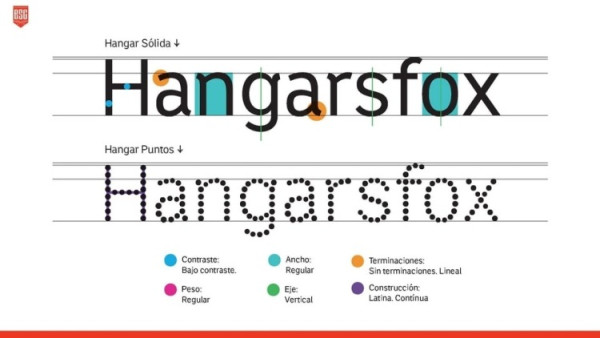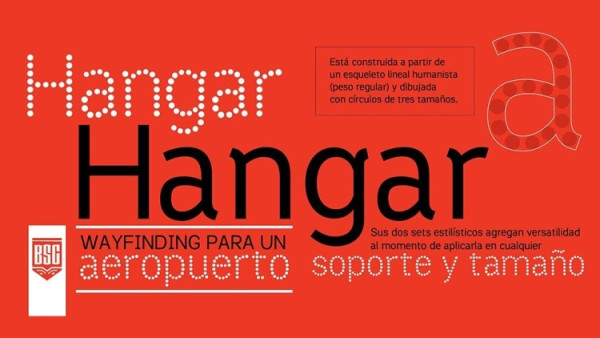
Hangar Font
Hangar Font is a wayfinding sans serif typeface designed for an airport. It features a solid character set and an additional stylistic set drawn from dots that retain the same structure.
Hangar is a humanistic linear type, it has a structure of little contrast but with pointed endings to emphasize the sign. It consists of two versions:
Solid Hangar: for bodies of text.
Hangar Points: for large formats beyond 72 points.
They are a perfect complement to a versatile signage system that requires multiple applications. From information panels, totems access to facilities, room indicators, signage conventional roof or wall.